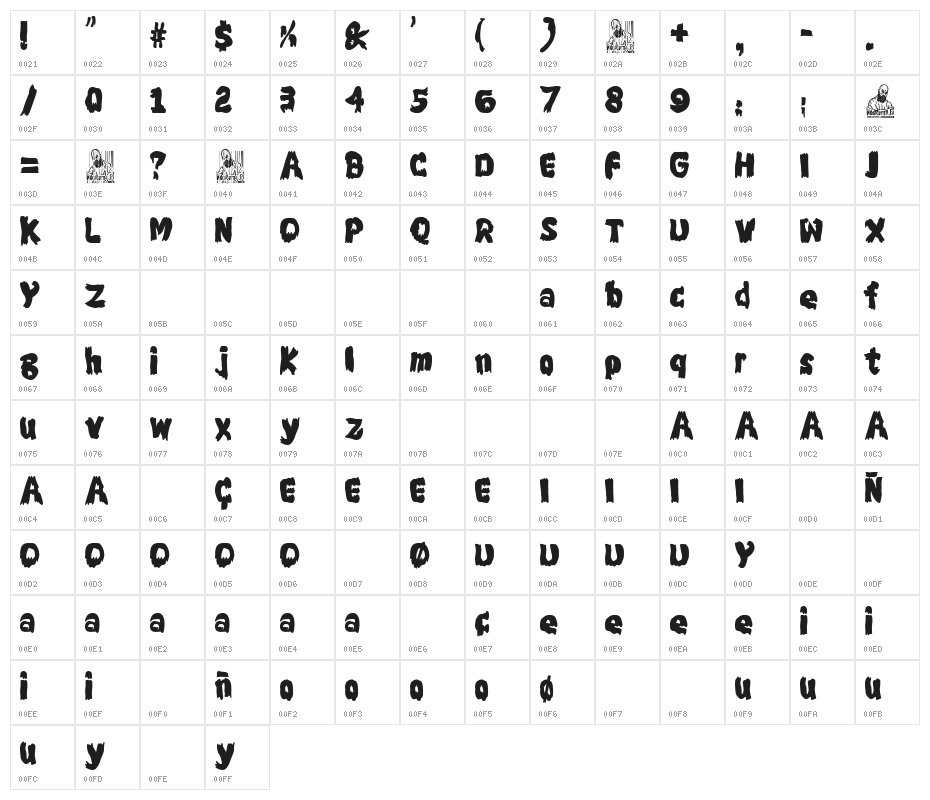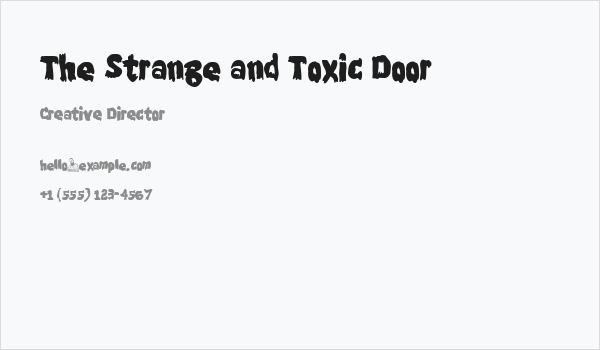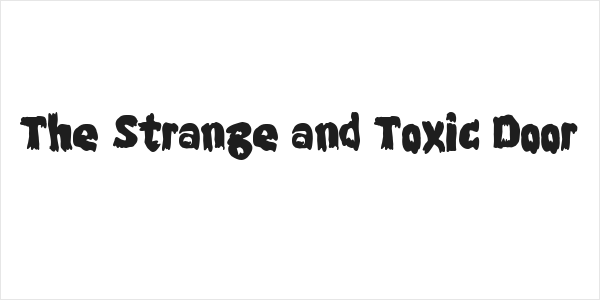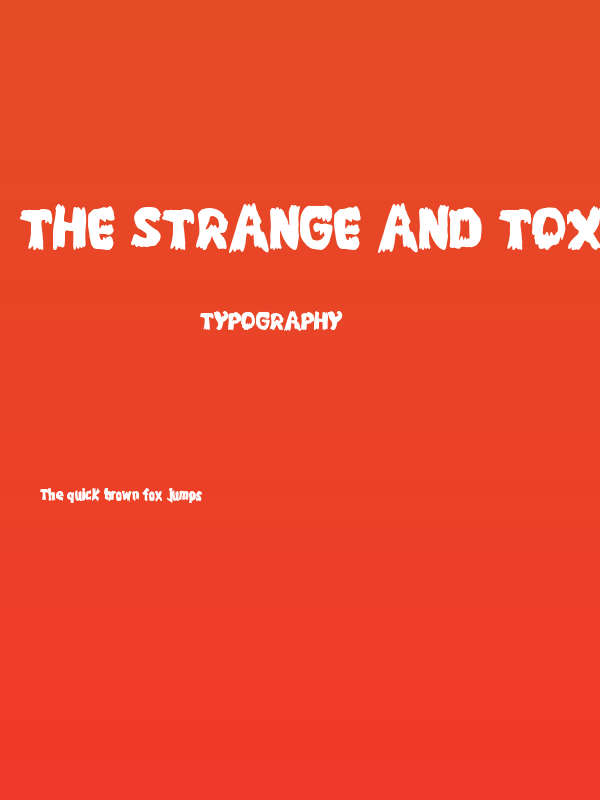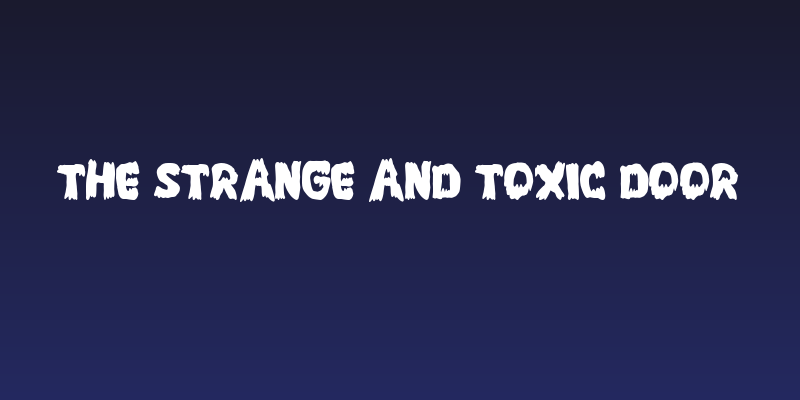
The Strange and Toxic Door Font
The Strange and Toxic Door Description
A bold, irregular display font with heavy, uneven strokes and a dripping, toxic appearance. The characters have a hand-drawn, organic feel with exaggerated forms and rough edges, evoking a sense of danger or horror.
| Overall Style | Decorative, Horror, Grunge |
| Use Case | Headlines, Posters, Logos |
| Proposed Projects | Horror posters, Halloween invitations, video game titles, comic books, event flyers, album covers. |